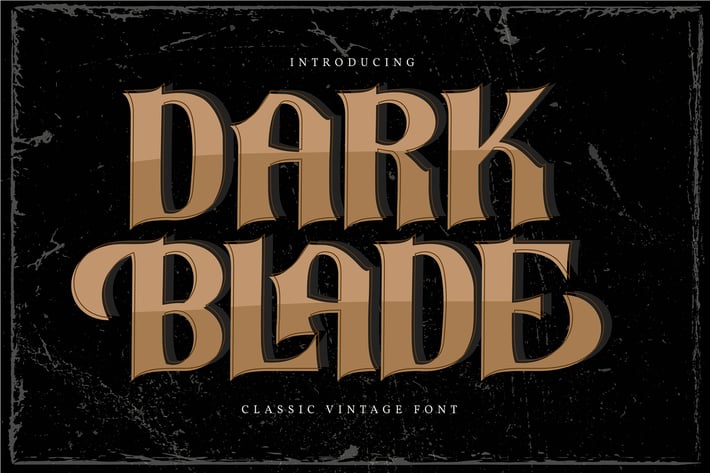
Dark Blade | Classic Vintage Font
Dark Blade | Classic Vintage Font with a calligraphy style, So beautiful on invitation like greeting cards, branding materials, business cards, quotes, posters, and more!